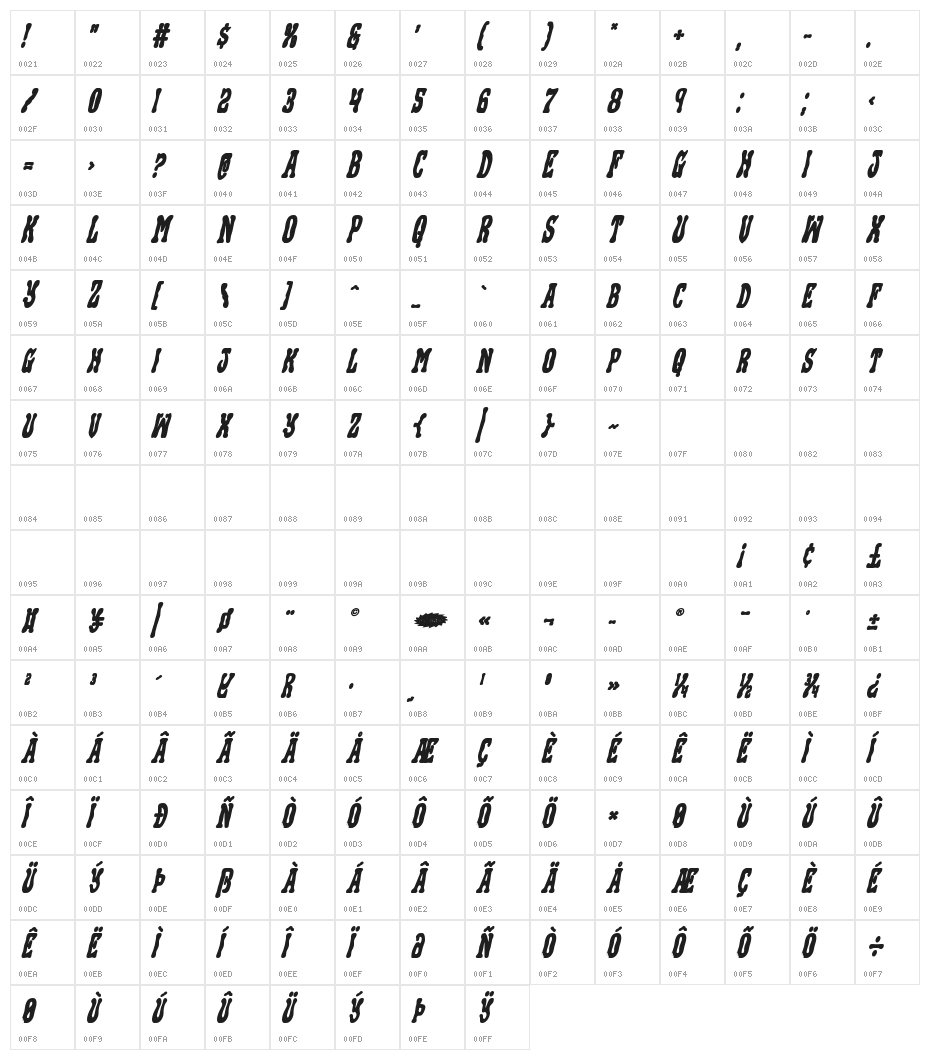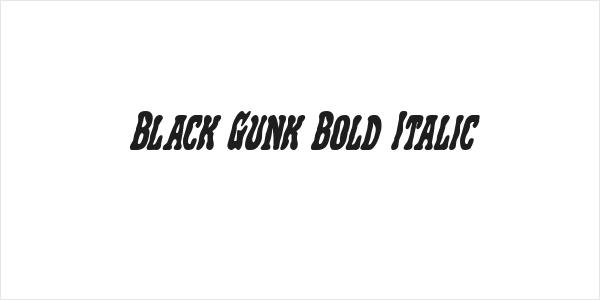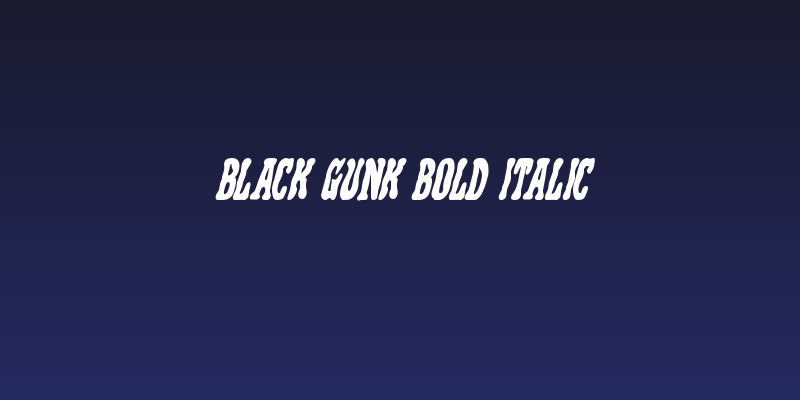
Black Gunk Bold Italic Font
Black Gunk Bold Italic Description
This bold and italic font features a unique, playful style with thick, wavy strokes that give it a dynamic and energetic appearance. The characters are heavily stylized, with exaggerated curves and a fluid motion that suggests movement. The boldness of the font ensures high visibility, making it suitable for attention-grabbing designs. Its whimsical nature is emphasized by the irregular shapes and the flowing, almost liquid-like quality of the letters. This font is perfect for projects that require a fun and lively aesthetic, adding a touch of personality and flair to any design.
Proposed ProjectsIdeal for posters, event flyers, children's book covers, and branding that requires a fun and energetic vibe.